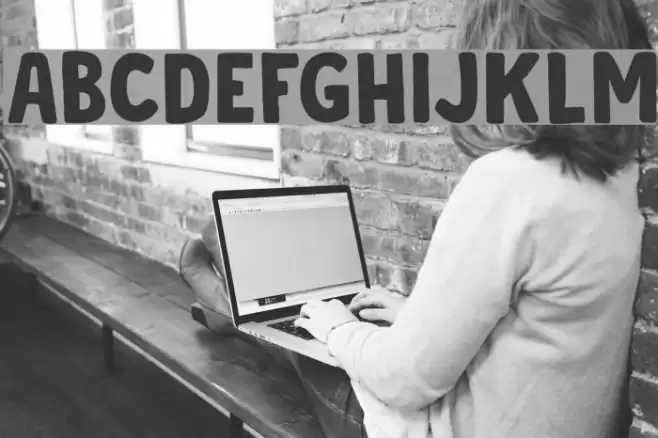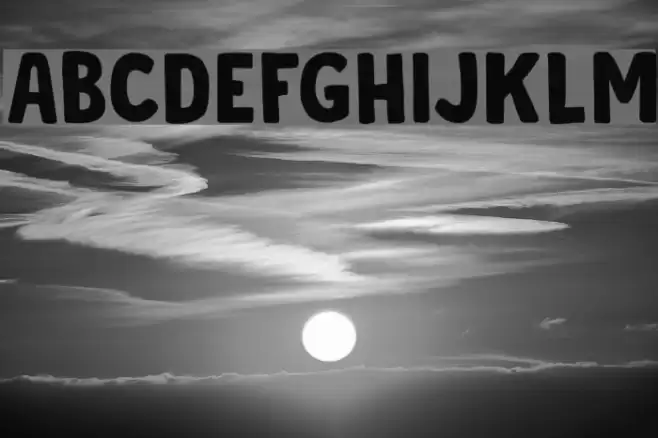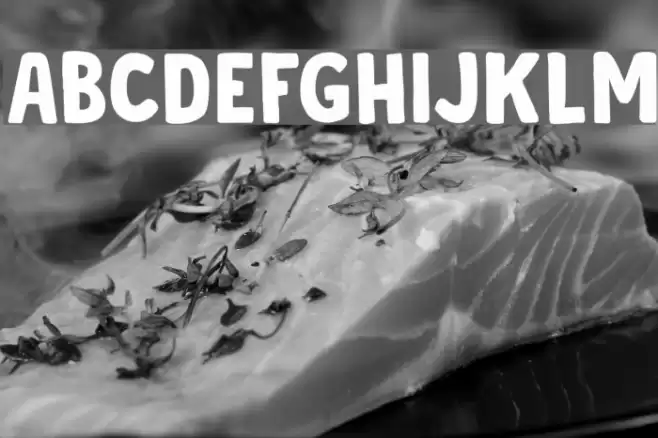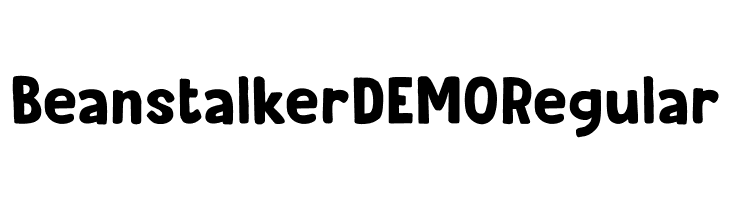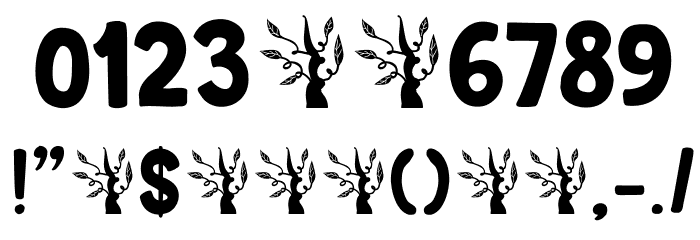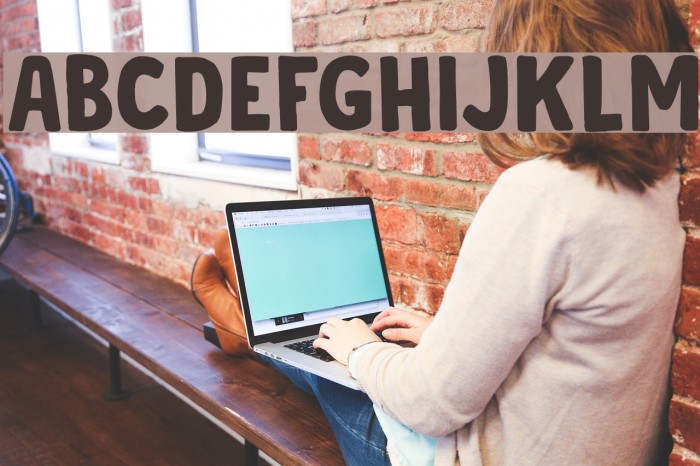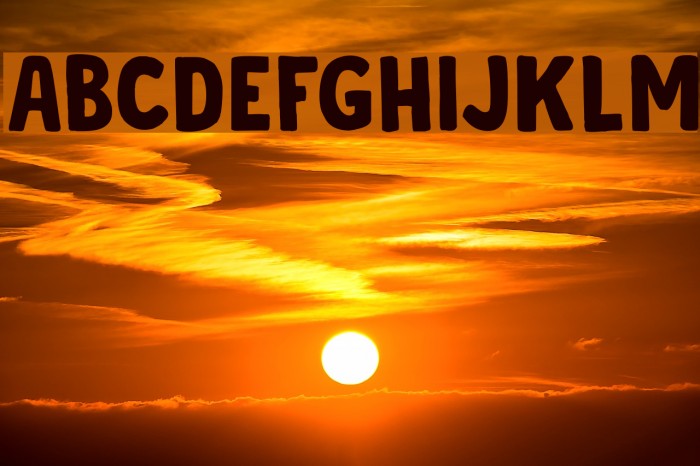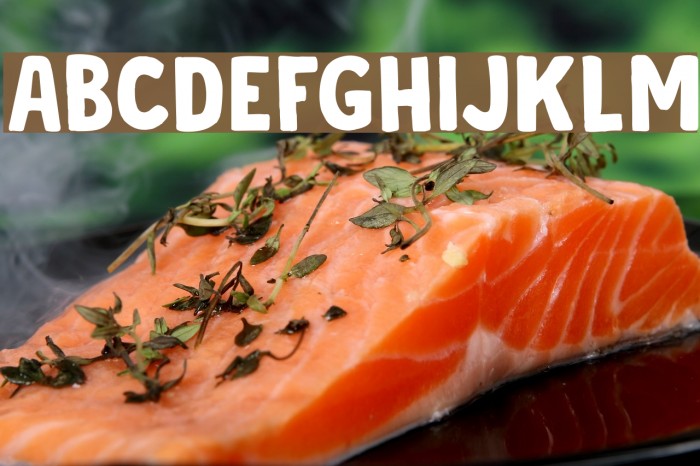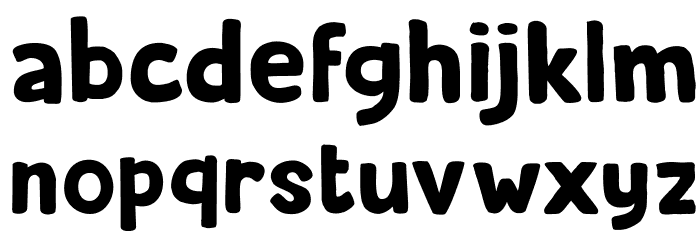
Beanstalker DEMO Regular Font
Beanstalker DEMO Regular Description
This font features a playful and bold design, characterized by its thick, rounded strokes and slightly irregular shapes. The letters have a hand-drawn feel, giving them a whimsical and organic appearance. The uppercase and lowercase letters maintain a consistent style, with the uppercase being slightly more structured. The numbers and special characters follow the same playful theme, with unique tree-like symbols adding a decorative touch. This font is ideal for projects that require a fun and informal look, such as children's books, posters, or creative branding.
A playful, bold font with a hand-drawn, whimsical style from Uncategorized fonts.
- Proposed Projects: Children's books, posters, creative branding, informal invitations.
- Overall Style: Playful, Whimsical, Organic